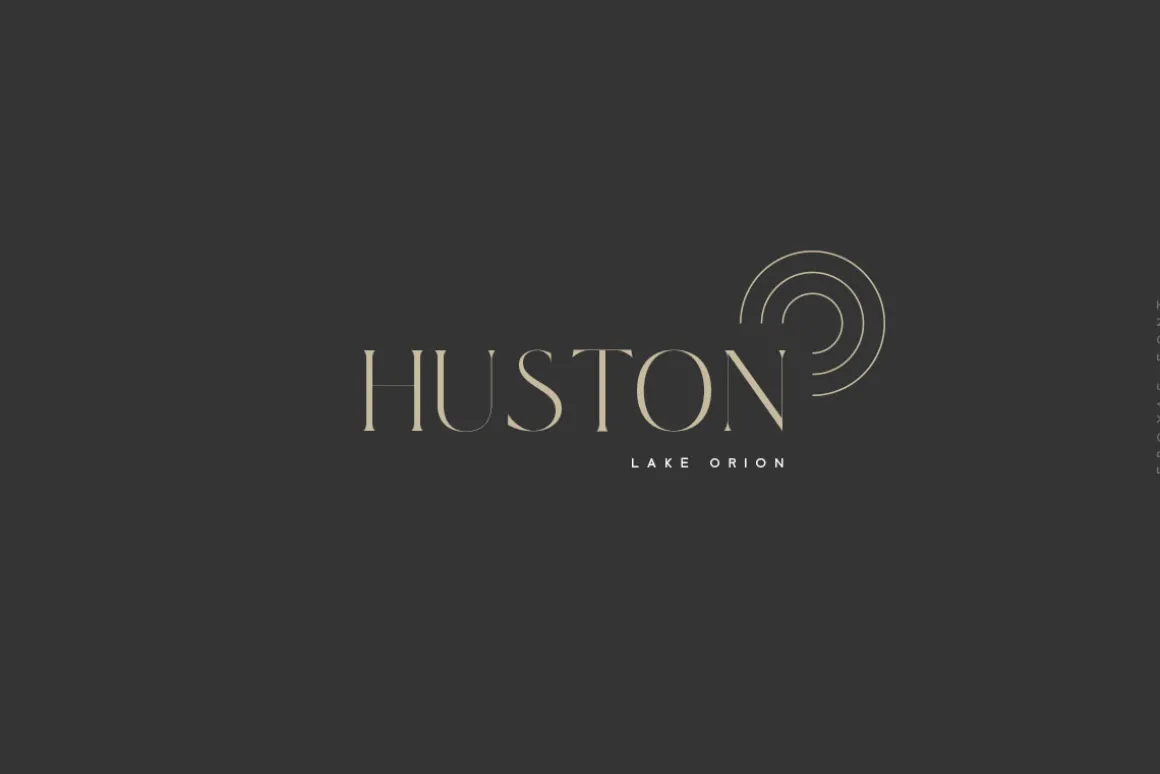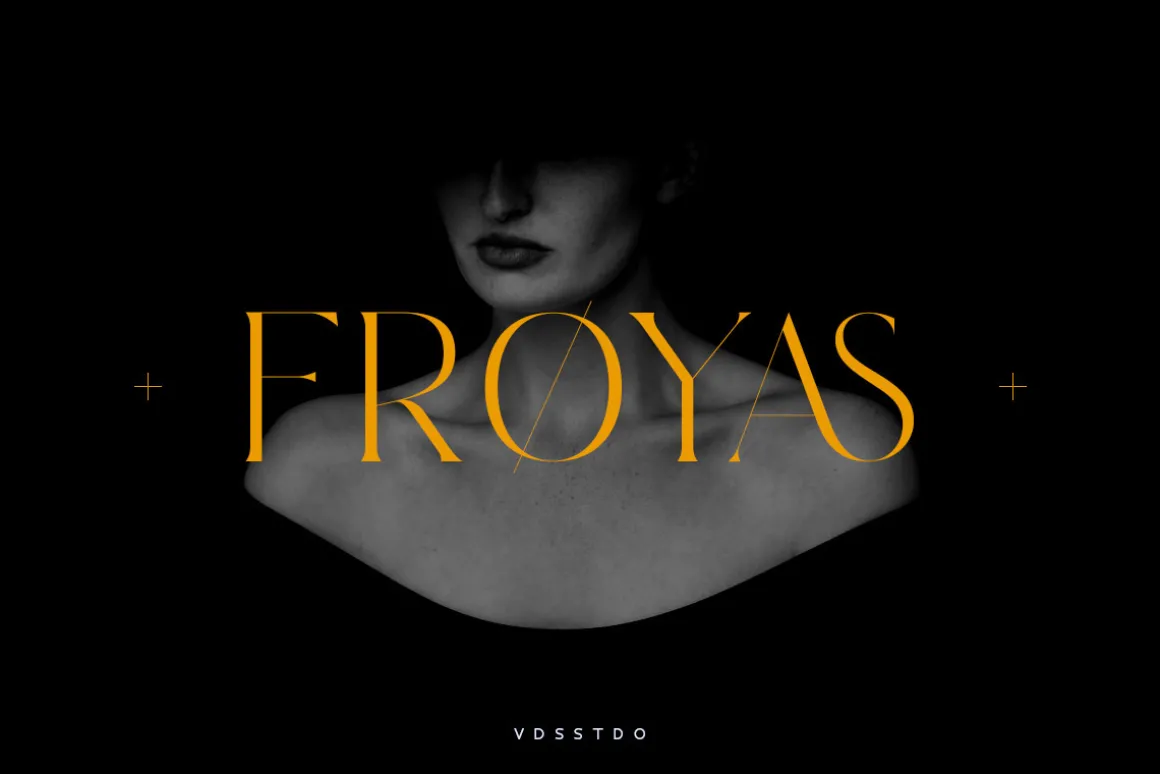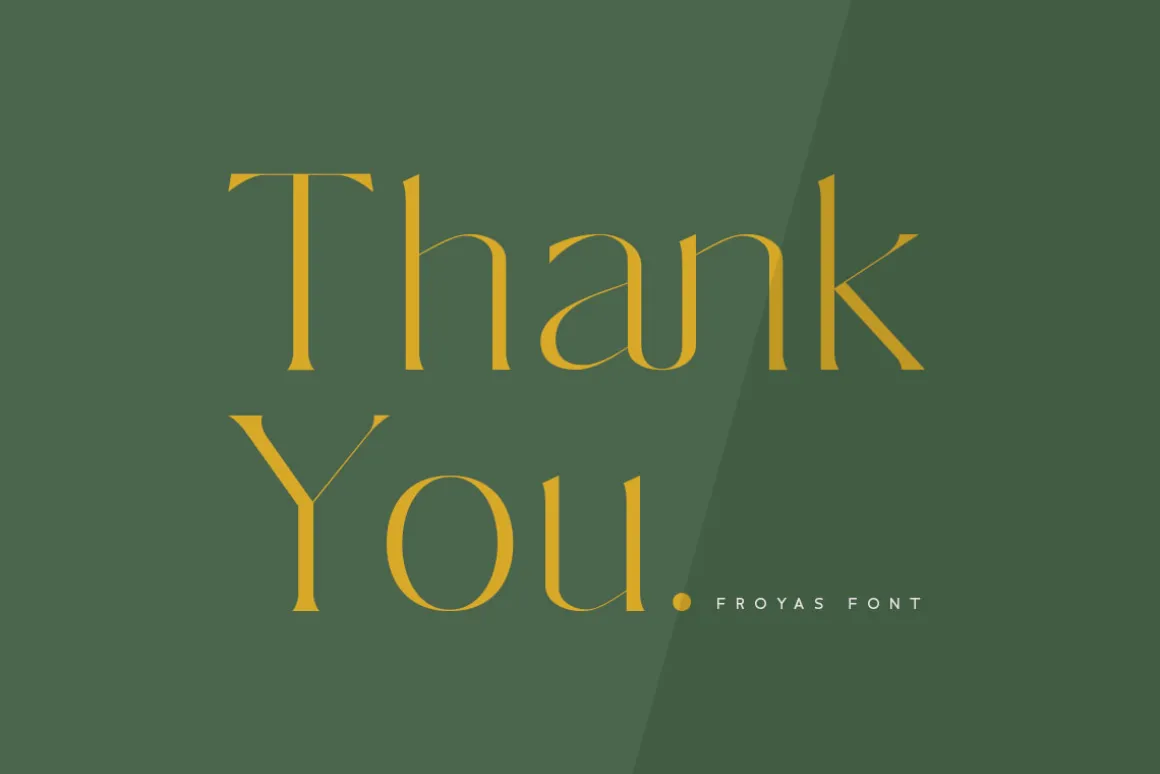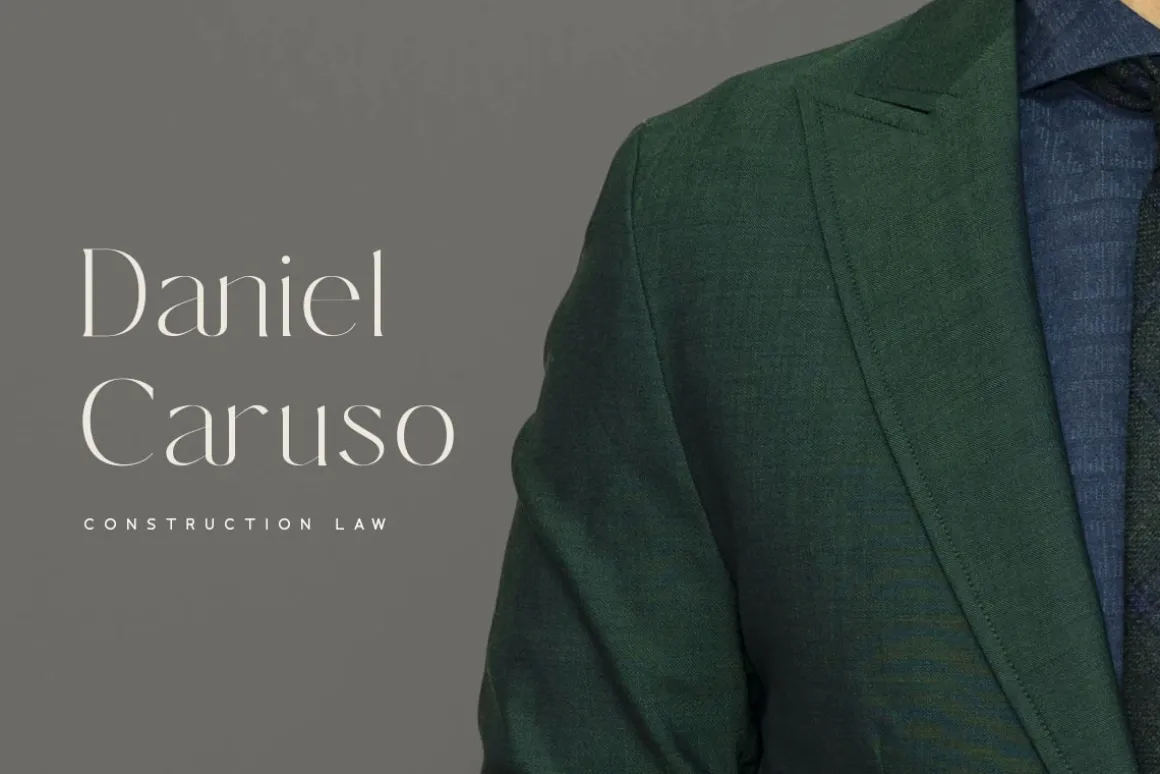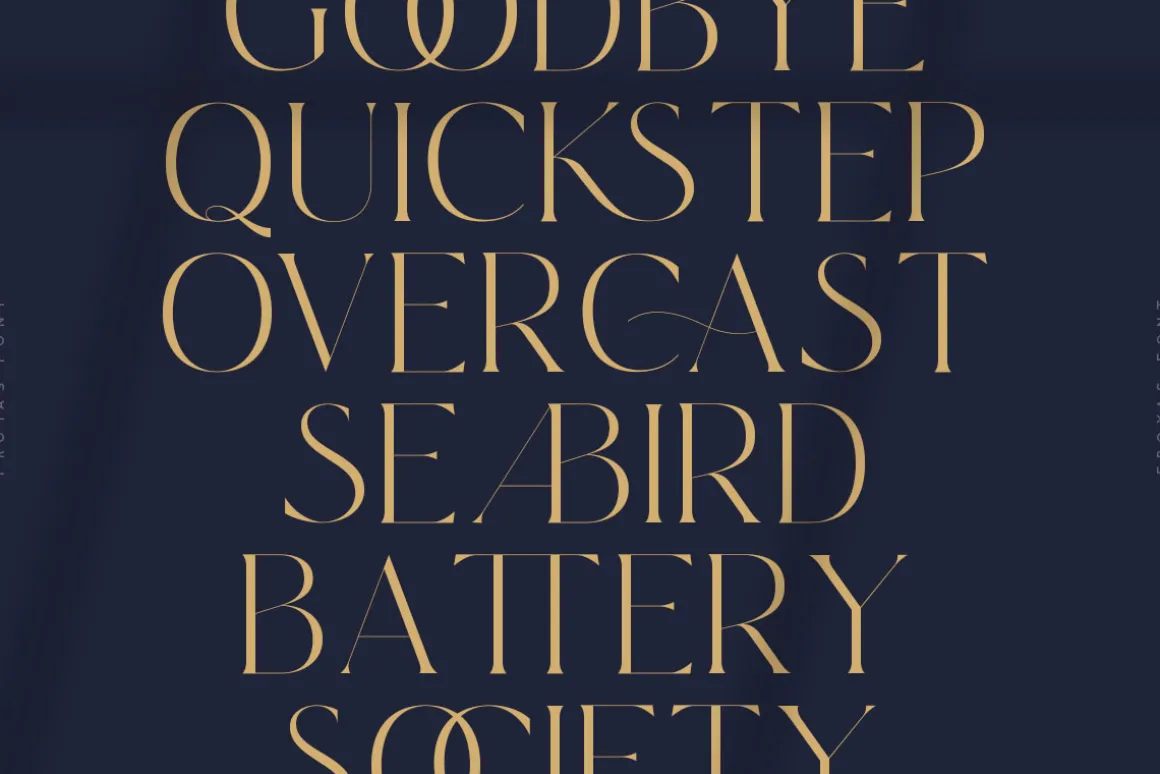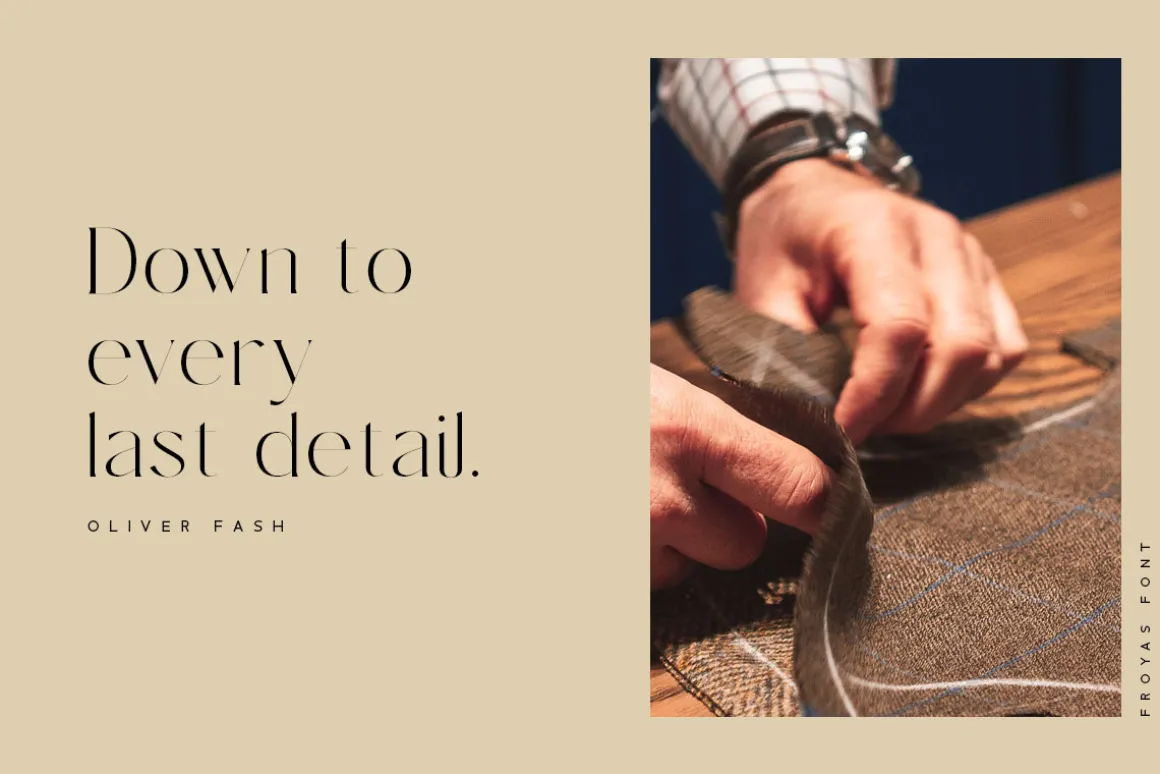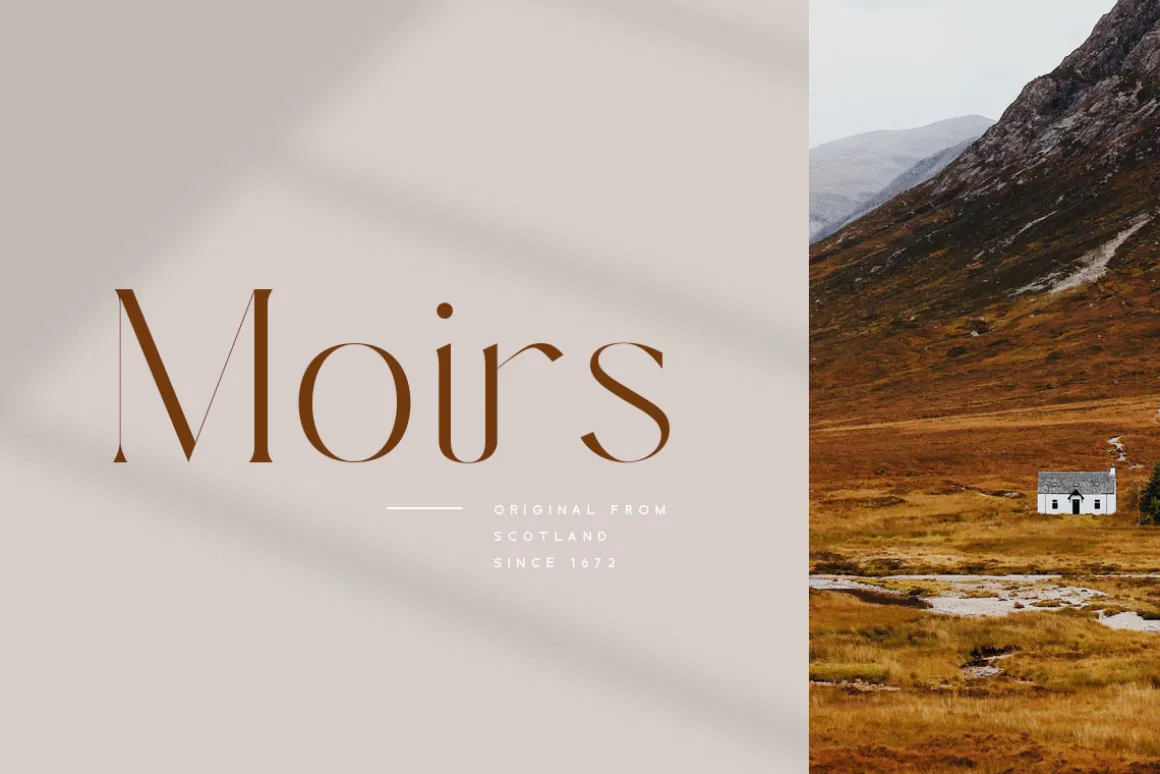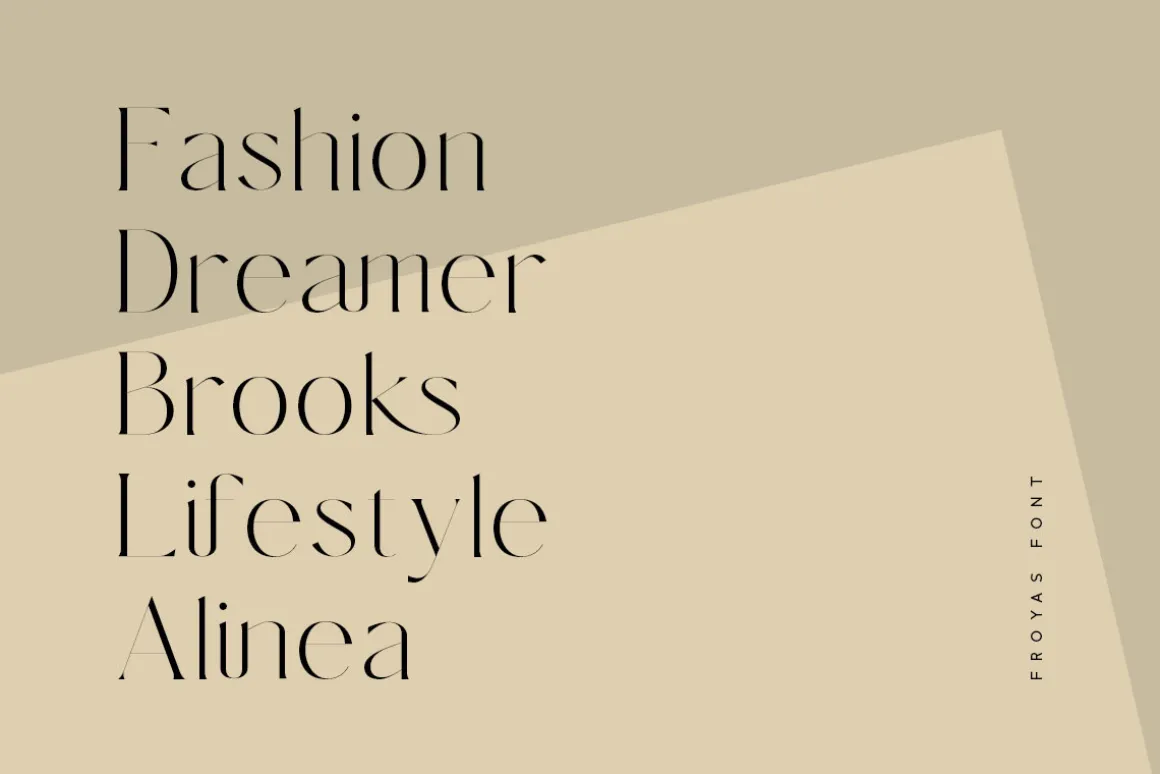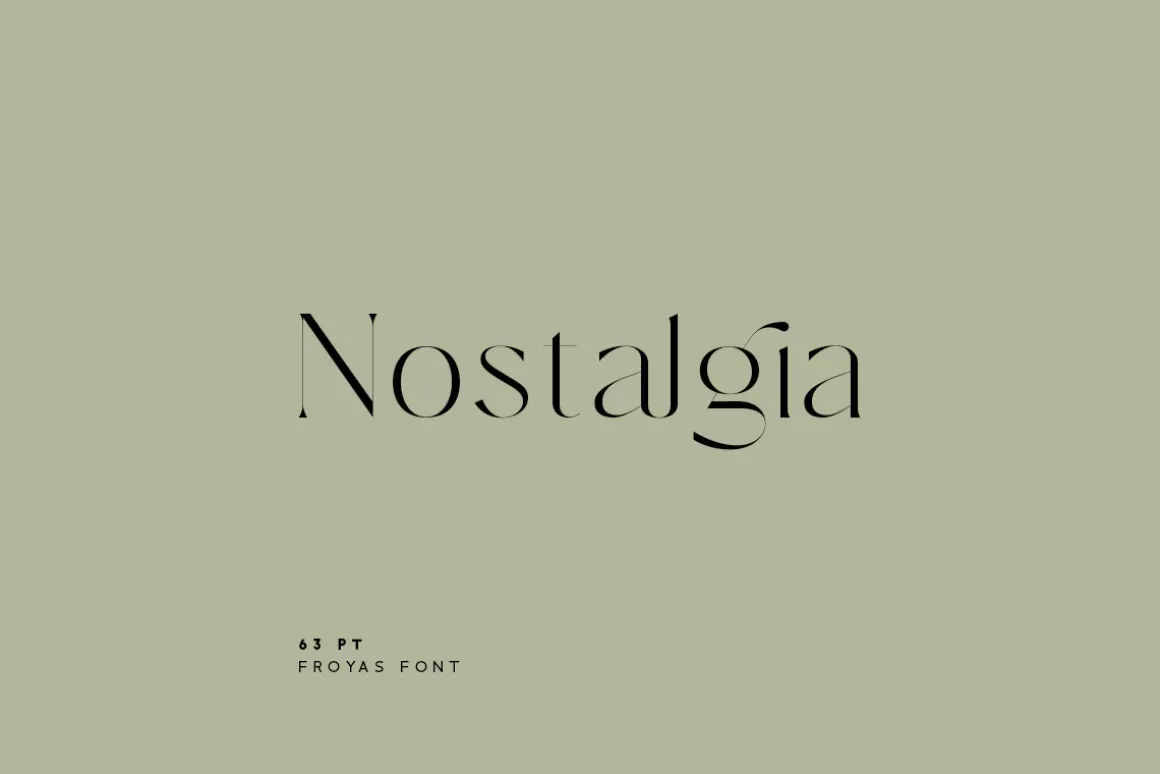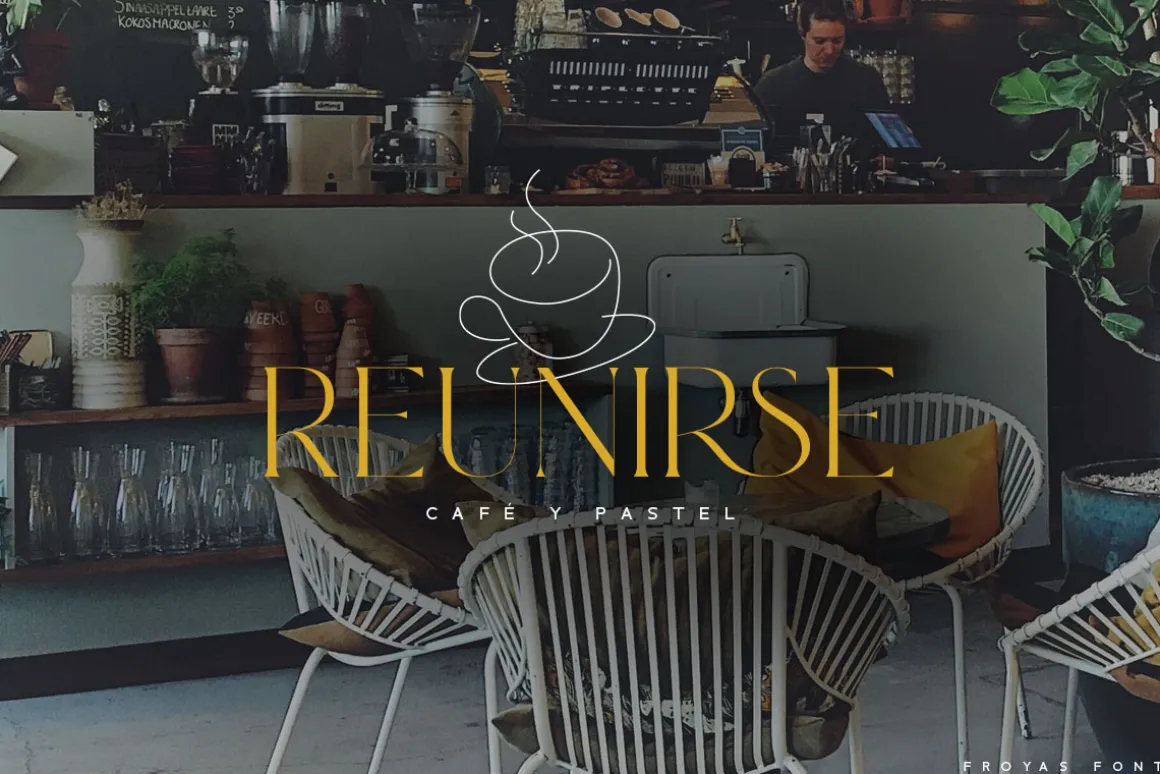
Introducing Froyas Sans!
Froyas is modern sans serif font, every single letters have been carefully crafted to make your text looks unique.
Foreign languages support: ÀÁÂÃÄÅÆÇÈÉÊËÌÍÎÏÐÑÒÓÔÕÖØÙÚÛÜÝßàáâãäåæçèéêëìíîïðñòóôõöøùúûüýÿ